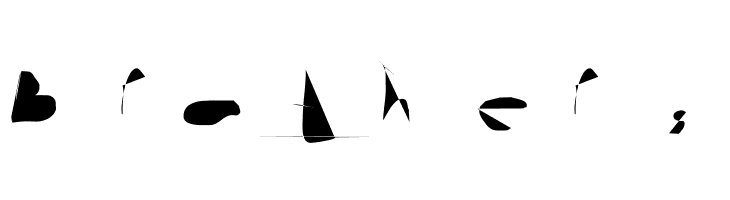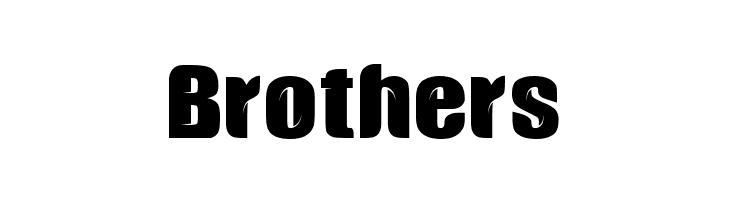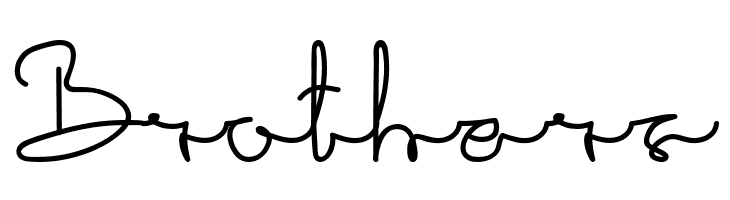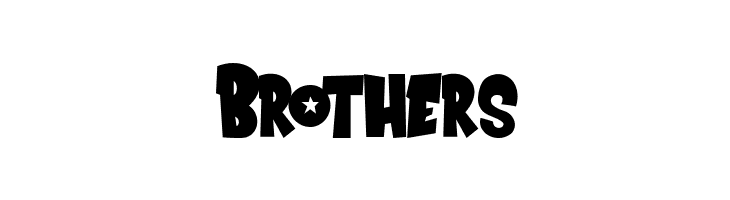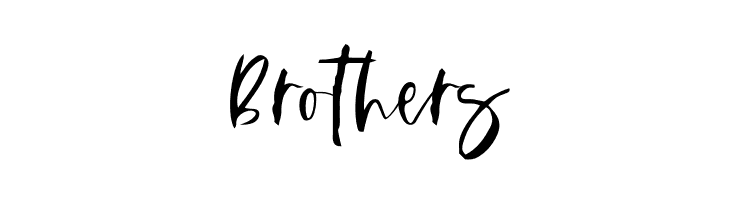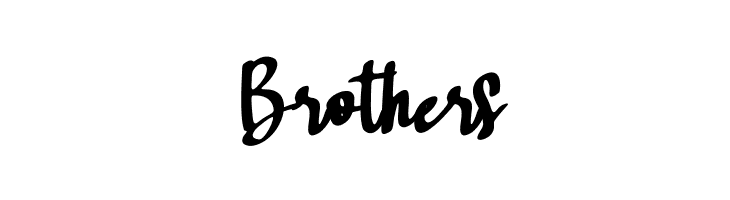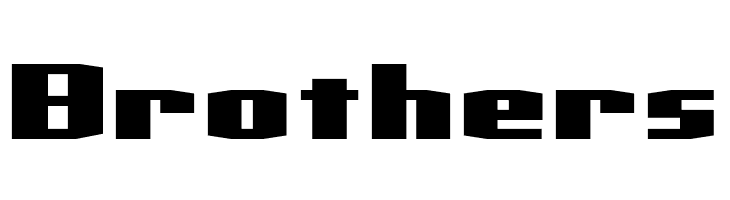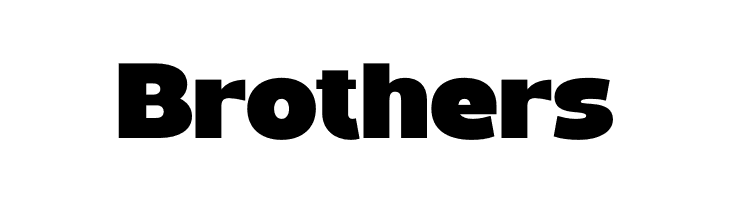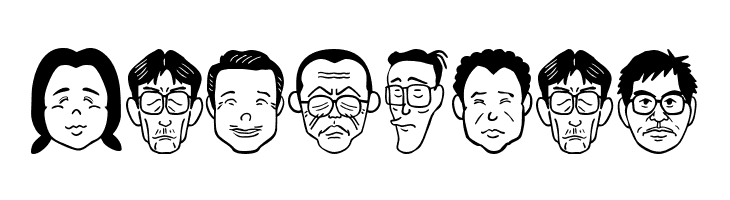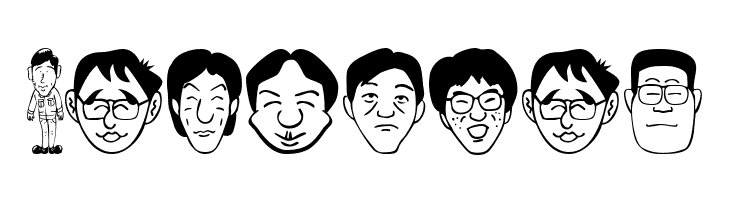
A playful, handwritten font with dynamic strokes and an informal style.
A bold, expressive handwritten font with fluid strokes and a modern aesthetic.
An abstract, fragmented font with sharp angles and irregular shapes, ideal for artistic expression.
A bold, rounded font with a strong, modern presence.
A playful, bold font with rounded edges and a hand-drawn feel.
A lively and expressive handwritten font with fluid, dynamic strokes.
A bold, hollow, geometric font with a modern, architectural style.
A bold, geometric font with outlined characters and sharp edges.
A bold, modern sans-serif font with thick strokes and tight spacing.
A bold, sans-serif font with thick, uniform strokes and tight spacing.
A modern, light sans-serif font with tall, narrow characters.
A modern, medium-weight sans-serif font with a sleek and professional appearance.
A sleek, ultra-thin sans-serif font with a modern and minimalist design.
A bold, modern font with high contrast and geometric shapes.
A bold, artistic font with thick, rounded strokes and unique cutouts.
A playful and whimsical script font with flowing, interconnected letters.
A bold, modern sans-serif font with thick, uniform strokes.
An elegant, flowing script font with a cursive, handwritten style.
A bold, geometric font with a modern and industrial style.
A playful, elegant cursive font with intricate swirls and high contrast.